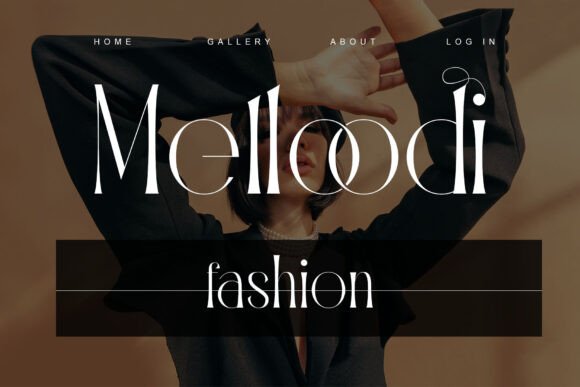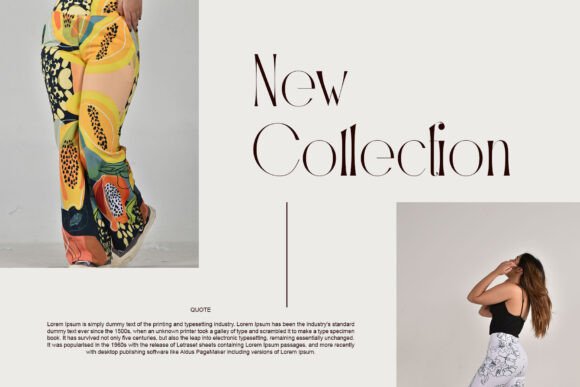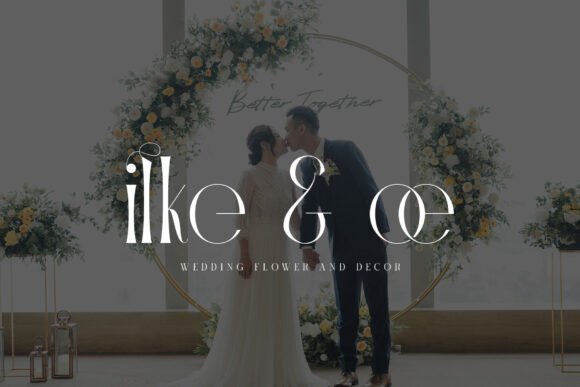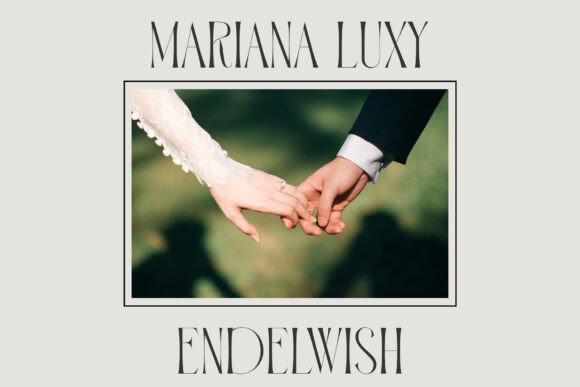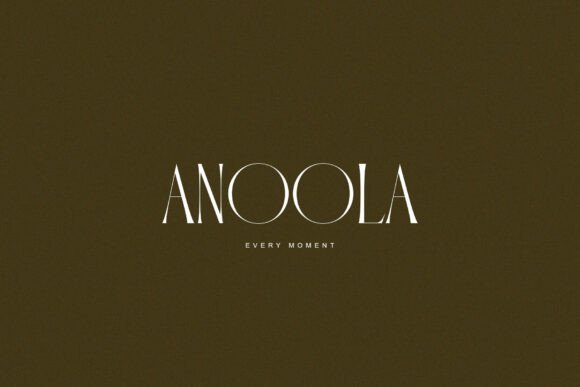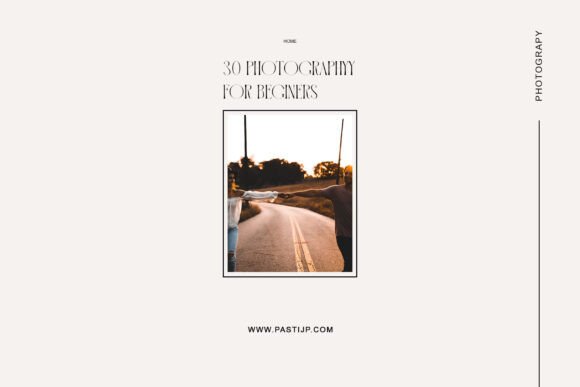
Bollgo Font: Elevate Your Designs with Elegance and Class
In the world of typography, finding the perfect font that embodies both modernity and nostalgia can be a daunting task. However, if you’re looking for a typeface that exudes elegance, class, and a touch of chic, look no further than the Bollgo Font. This stunning serif typeface is designed to cater to the needs of designers and crafters who seek to add a sophisticated flair to their creations.
The Essence of Bollgo Font
Bollgo is a meticulously crafted font that seamlessly blends modern and classic elements. Its elegant and classy design makes it an ideal choice for a wide range of applications, from logos and magazine layouts to social media graphics. The font’s versatility is one of its standout features, allowing designers to experiment with various styles and contexts.
Key Features of Bollgo Font
- Elegant and Classy Design: Bollgo’s serif typeface is characterized by its refined and sophisticated look, perfect for designs that require a touch of luxury and refinement.
- Modern and Nostalgic: This font strikes the perfect balance between modernity and nostalgia, making it suitable for a wide range of design projects.
- Ready-to-Use Pairing: Bollgo comes with matched font pairs, making it easy for designers to create cohesive and harmonious designs.
- Multipurpose: Whether you’re working on a logo, magazine layout, or social media graphic, Bollgo is the perfect choice for adding a touch of elegance and style.
Who is Bollgo Font for?
Bollgo is specifically designed for designers and crafters who want to infuse their creations with a sense of elegance, stylishness, and modernity. If you’re looking for a font that can help you:
- Create stunning logos that leave a lasting impression
- Develop eye-catching magazine layouts that engage readers
- Design social media graphics that stand out from the crowd
- Add a touch of sophistication to your branding and marketing materials
then Bollgo Font is the perfect solution.
Tips for Using Bollgo Font Effectively
To get the most out of Bollgo, here are some expert tips:
- Experiment with Font Pairings: While Bollgo comes with ready-to-use font pairs, don’t be afraid to experiment with different combinations to find the perfect match for your design.
- Play with Font Sizes: Bollgo’s elegant design looks great in various font sizes. Experiment with different sizes to create visual hierarchy and add depth to your design.
- Use it for Headings and Body Text: Bollgo’s versatility makes it suitable for both headings and body text. Use it to create cohesive and harmonious designs.
In conclusion, Bollgo Font is a game-changer for designers and crafters who seek to add a touch of elegance, class, and modernity to their creations. With its elegant and classy design, modern and nostalgic feel, and versatility, Bollgo is the perfect choice for a wide range of design projects. Whether you’re working on a logo, magazine layout, or social media graphic, Bollgo is sure to elevate your designs to the next level.